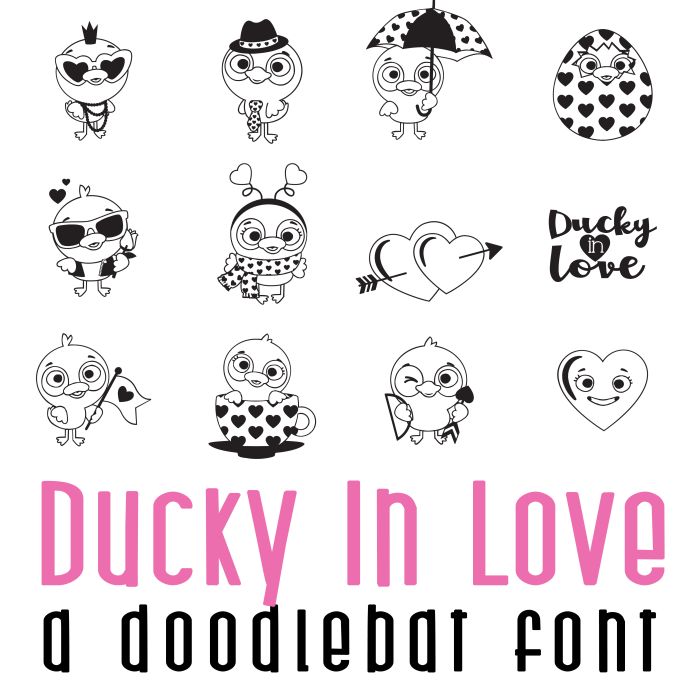
This doodlebat font features 26 adorable ducks in love and ready for Valentine's Day. Perfect for cards, crafts, gifts, classrooms, planner stickers, parties, scrapbook pages and more!